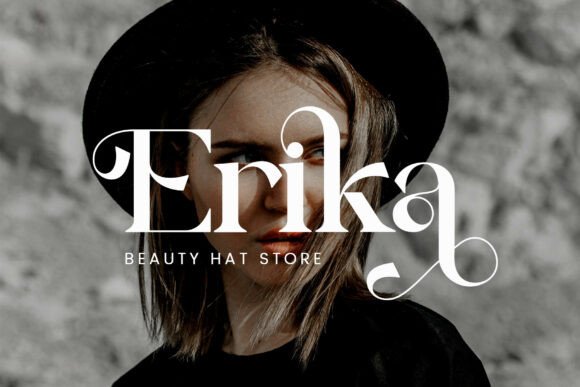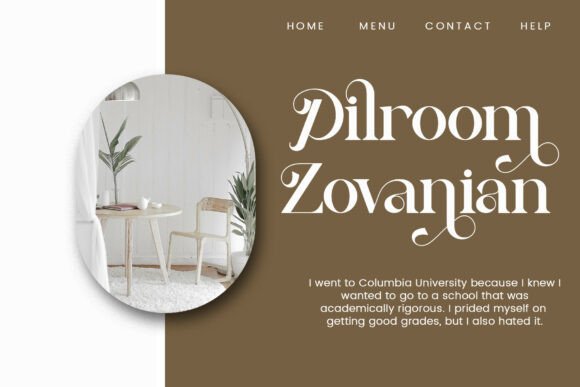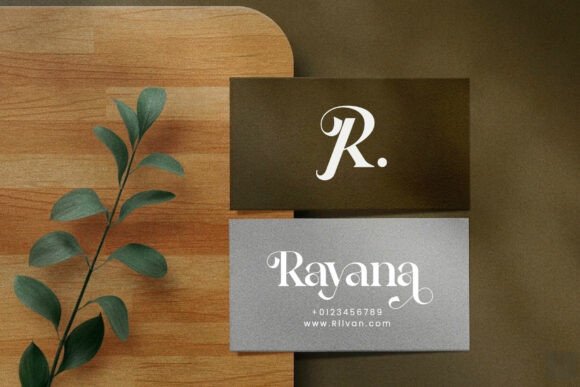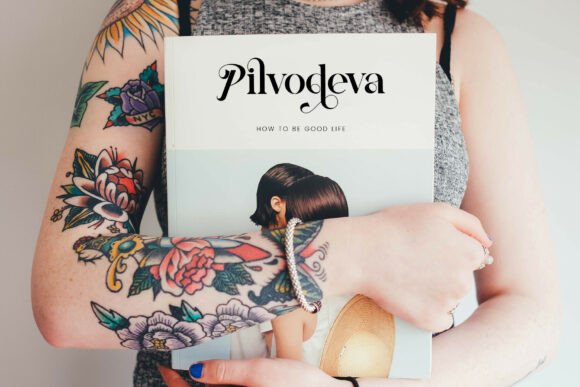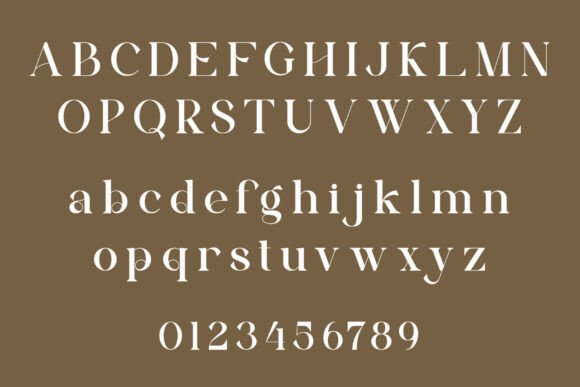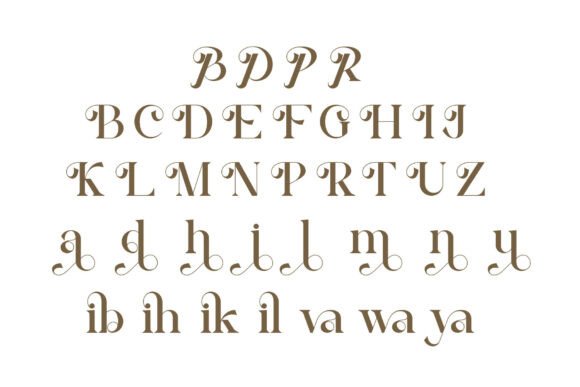
Introduction to Rilvan Font Font
Fonts play a crucial role in design, and the Rilvan Font font is a typeface that brings both character and versatility to any project. Whether you’re working on a branding project, a website, or a print design, the Rilvan Font font offers a unique style that can elevate your work.
Discover the elegance of Rilvan – a modern Ligature Serif Font where perennial allure blends with an artistic flourish, capturing the essence of style and sophistication.
Crafted meticulously to dazzle, this font is accentuated with distinct custom ligatures and exquisite high-contrast strokes, creating an air of luxury and refinement every time you type Rilvan is engineered to elevate your designs effortlessly, thanks to its exclusive letterforms and smooth ligature flow that bring a unique touch of unmatched quality, ensuring your work stands out.
Key Features of Rilvan Font Font
Why Choose Rilvan Font Font?
The Rilvan Font font is more than just a typeface – it’s a design tool that helps you communicate your message with style and clarity. Its unique character set and versatile design make it suitable for a wide range of applications, from elegant invitations to bold headlines.
With its carefully crafted letterforms and balanced proportions, the Rilvan Font font ensures readability and visual appeal across all mediums.
What makes Rilvan Font font special?
The Rilvan Font font stands out with its unique design, exceptional readability, and versatility across various design applications.